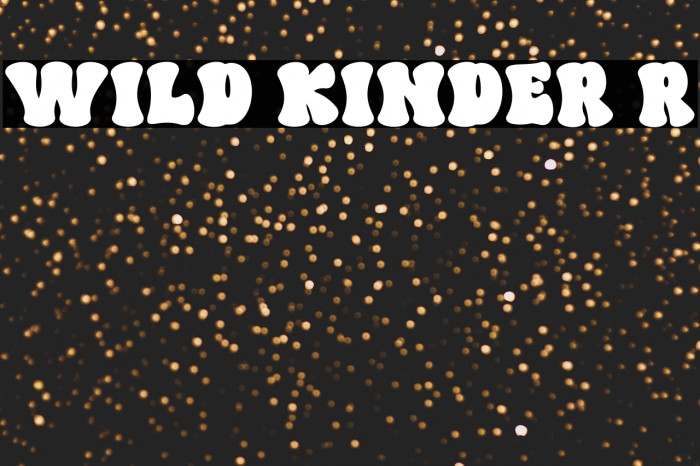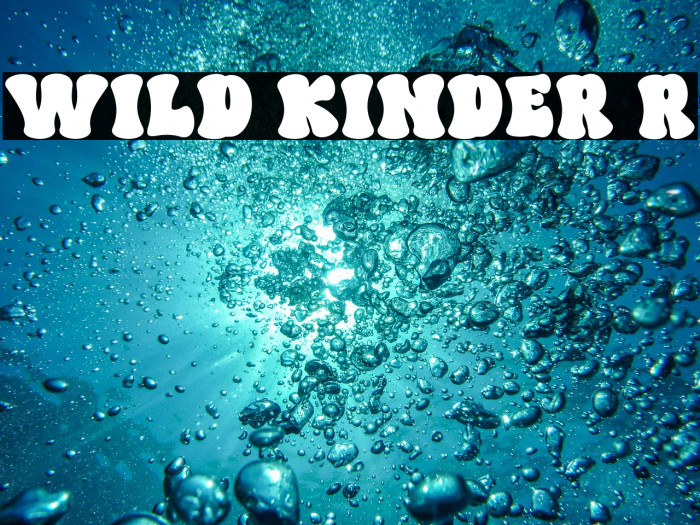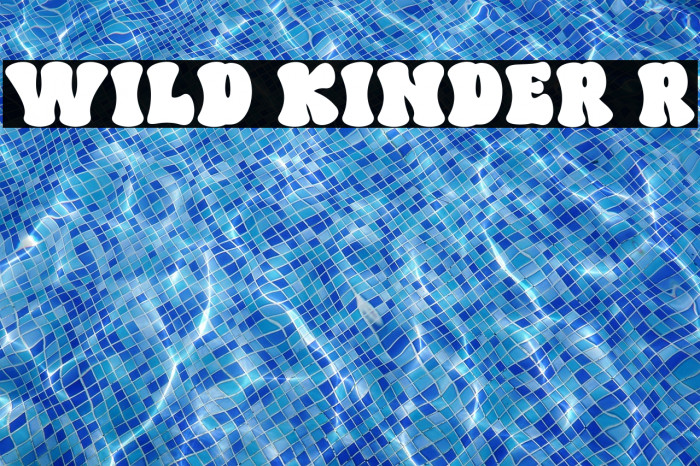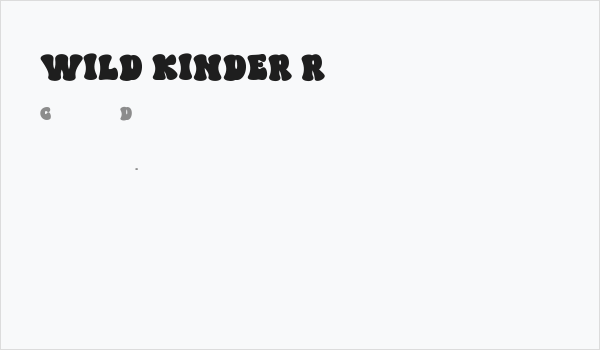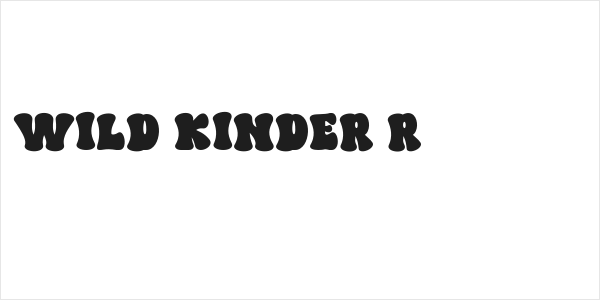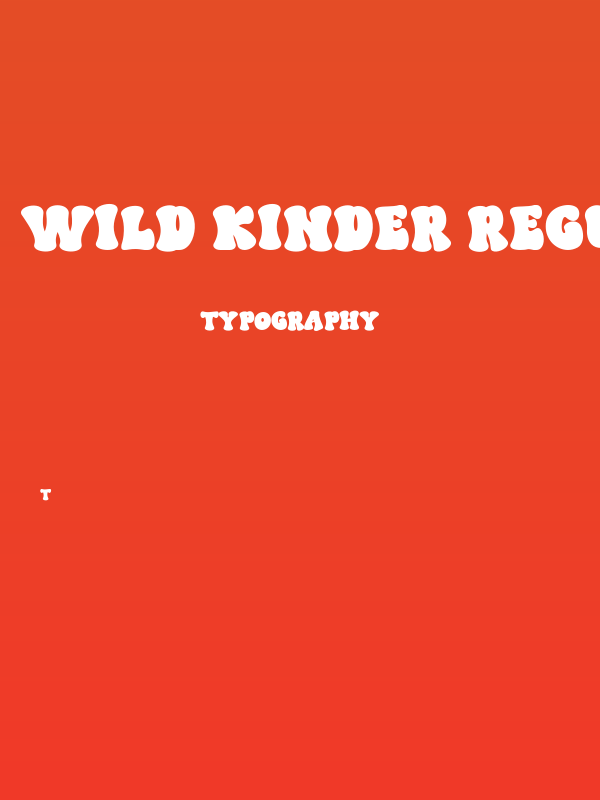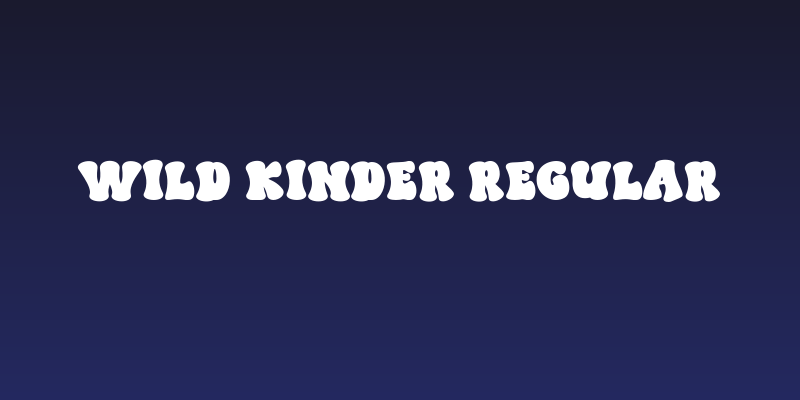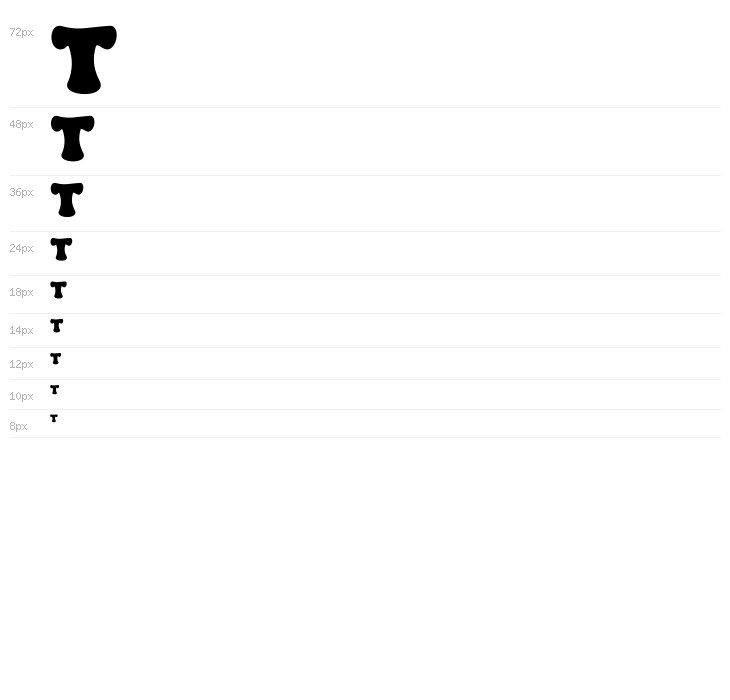
WILD KINDER Regular Font
WILD KINDER Regular Description
This font features a playful and bold design with rounded, bubbly characters that exude a sense of fun and whimsy. The letters are thick and have a uniform weight, giving them a strong presence on the page. The style is reminiscent of retro or vintage designs, making it ideal for projects that require a touch of nostalgia. The characters are closely spaced, enhancing the boldness and making it suitable for eye-catching headlines or titles. Its unique style makes it stand out, perfect for creative and informal applications.
| Proposed Projects | Perfect for children's books, playful branding, retro-themed posters, and creative event invitations. |